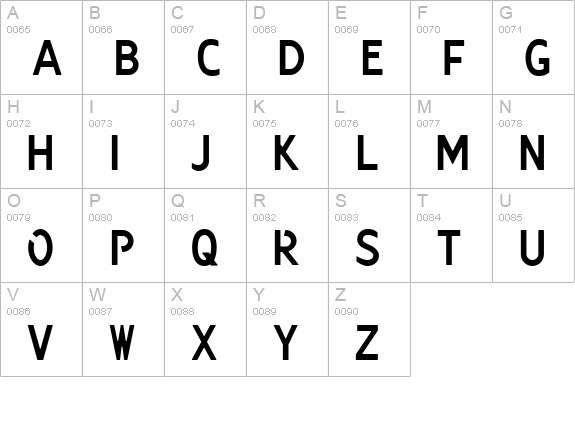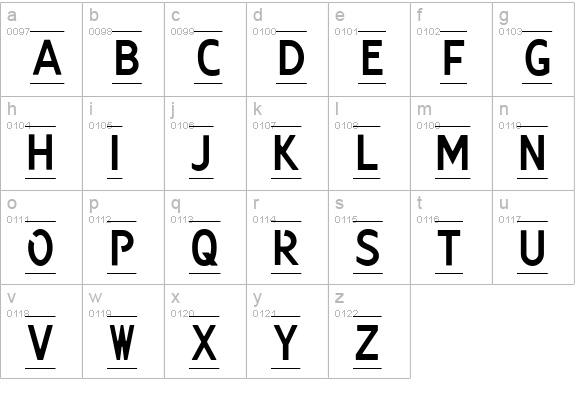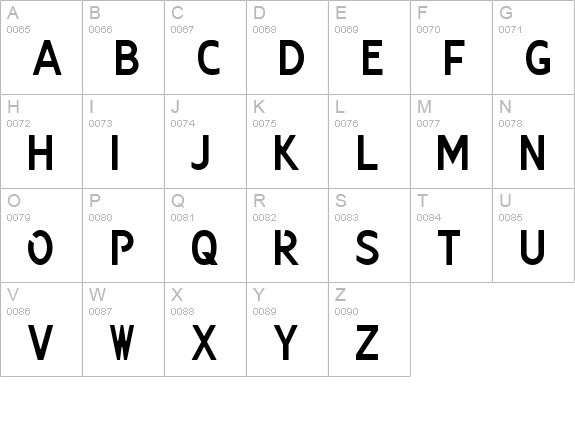
Kenteken Font Details
Kenteken is a stunning font that exudes elegance and sophistication. Its sleek and modern design makes it perfect for a wide range of projects, from branding to logo design and everything in between. With its clean lines and precise curves, Kenteken is sure to make a lasting impression. What sets Kenteken apart is not only its impeccable design, but also the fact that it is completely free to download. Yes, you read that right – this incredible font is available to you at absolutely no cost. It's a rare gem in the world of typography, where high-quality fonts often come with a hefty price tag. Kenteken can be easily downloaded at FontsMarket.com, a trusted source for all your font needs. Simply visit the website, search for Kenteken, and with just a few clicks, you'll have this exquisite font at your fingertips. Whether you're a professional designer or a hobbyist, this free font is a must-have in your collection. Featuring a wide range of weights and styles, Kenteken offers versatility and flexibility for any design project. From bold and impactful headlines to subtle and refined body text, this font can do it all. Its legibility is unmatched, ensuring that your message is delivered with clarity and style. Kenteken's clean and modern aesthetic makes it an ideal choice for a variety of applications. It works seamlessly in both print and digital mediums, making it perfect for websites, brochures, posters, and more. With its timeless design, Kenteken is sure to stand the test of time and remain a staple in your font library. So why wait? Take advantage of this incredible opportunity to enhance your designs with a world-class font – and did we mention it's free? Download Kenteken today from FontsMarket.com and unlock a new level of creativity and professionalism. Don't miss out on this amazing font – it's a game-changer for your design projects.